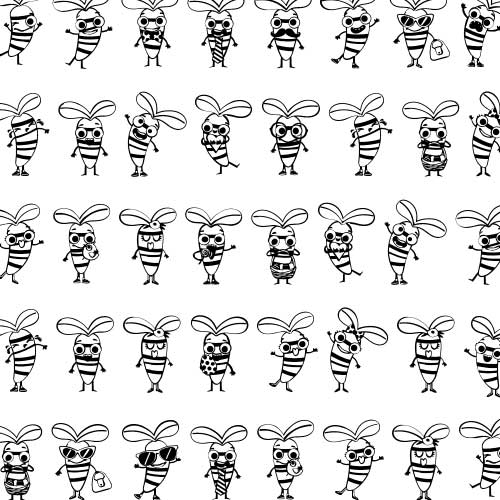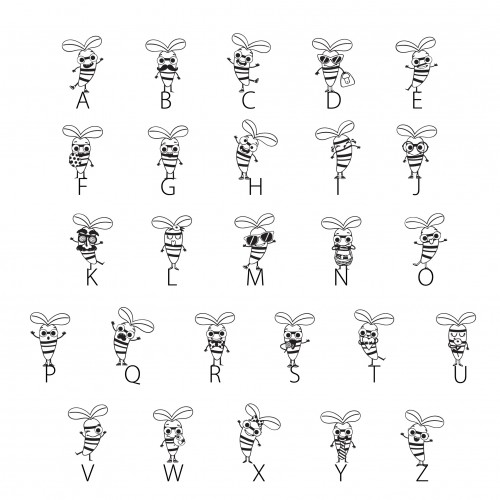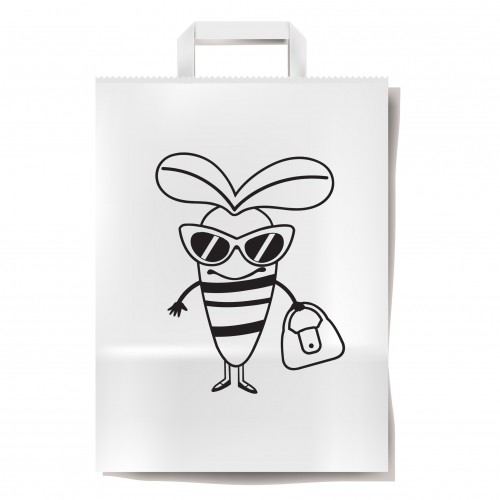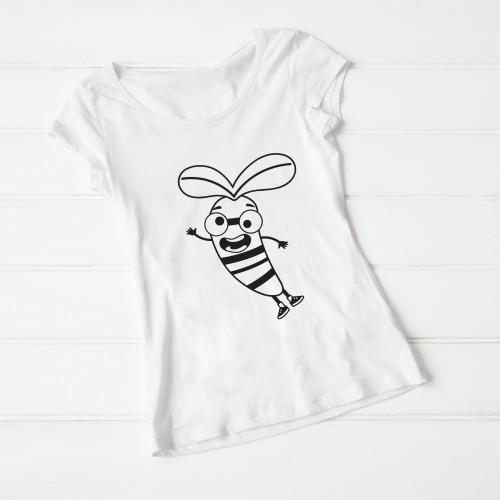
DB Carrot Couture - Characters - DB
This adorable doodlebat font features 26 carrot emoji characters perfect for Easter, cards, crafts, gifts, planner stickers, parties, scrap book pages and more!